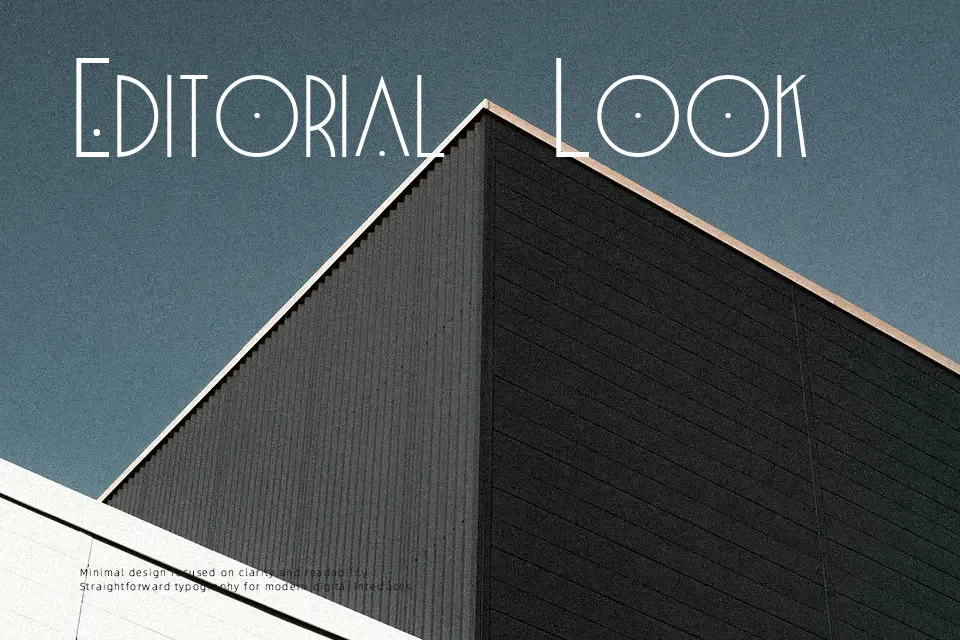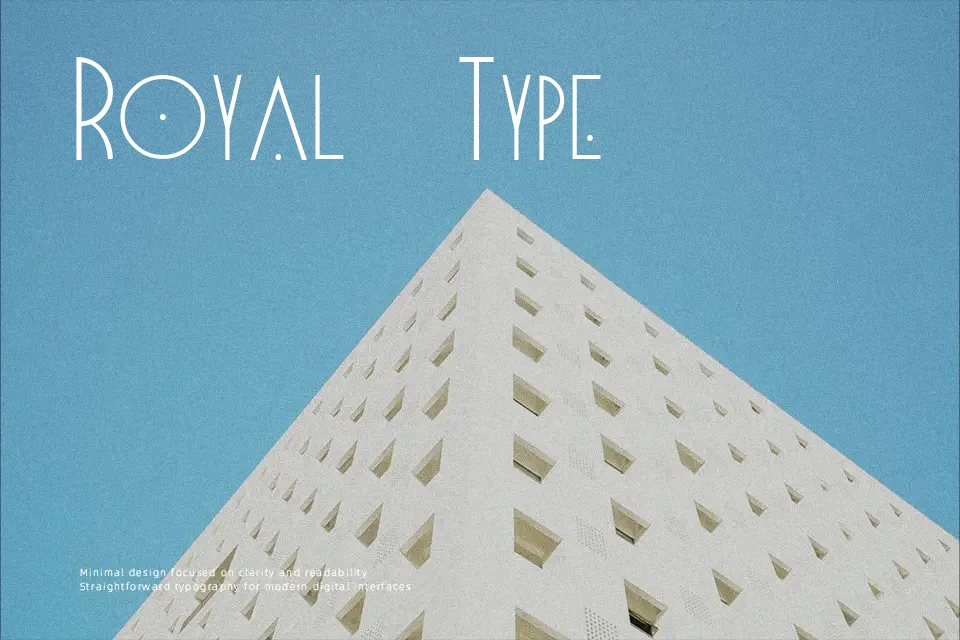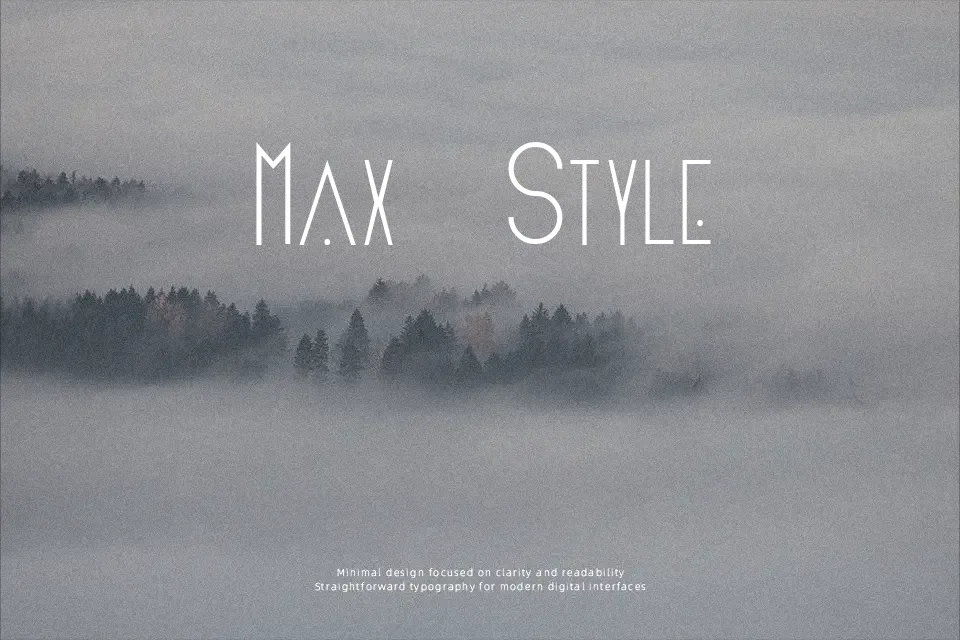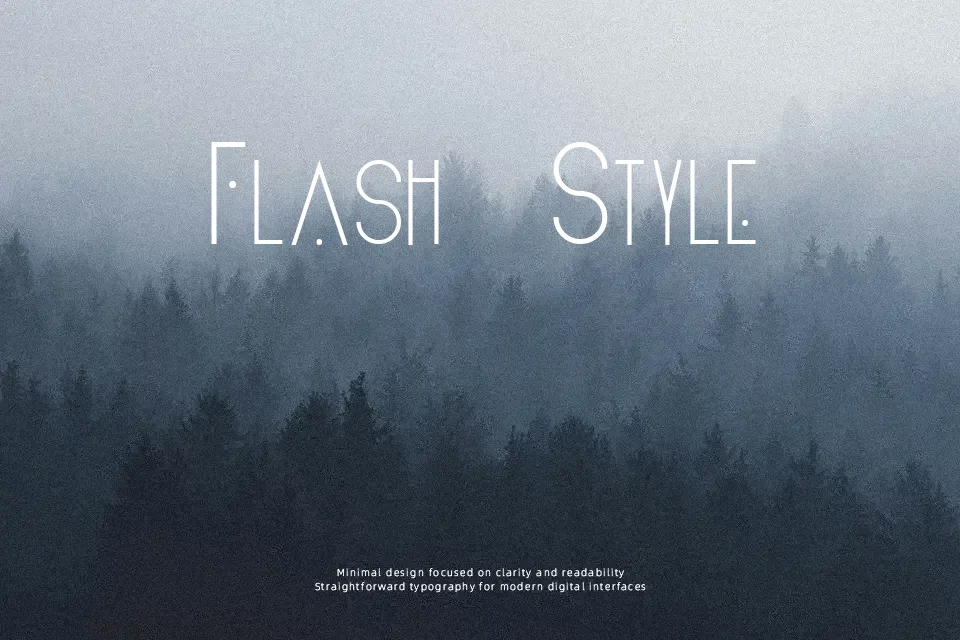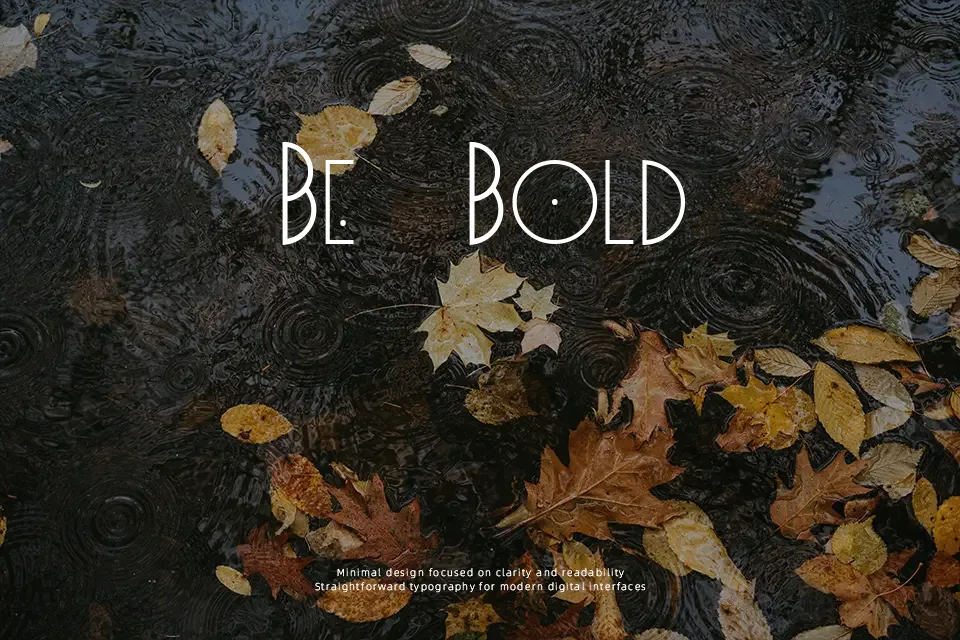
Blake Font
Blake is a distinct geometric display font balancing vintage aesthetics with sleek modern minimalism. Its visual architecture relies on thin, straight strokes paired with prominent circular elements, delivering a sophisticated and futuristic impression. The tall, slightly condensed letters establish a commanding visual presence, while the consistent line weight keeps the design clean and cohesive.
This typeface shines in experimental branding, tech-oriented poster designs, and minimalist editorial layouts requiring strong structural typography. However, its unconventional letterforms and strictly geometric proportions make it less suitable for dense body text or small interface elements where readability might suffer. If your project demands an architectural vibe, Blake provides a highly graphical and memorable solution.
Modern tech and futuristic branding identities
High-impact headlines and large editorial typography
Minimalist poster and experimental layout designs
Dense paragraphs or long-form reading materials
Corporate documents requiring traditional styles
Small user interface elements or body copy
Perfect for branding, editorial, and headline, with a futuristic and condensed style.